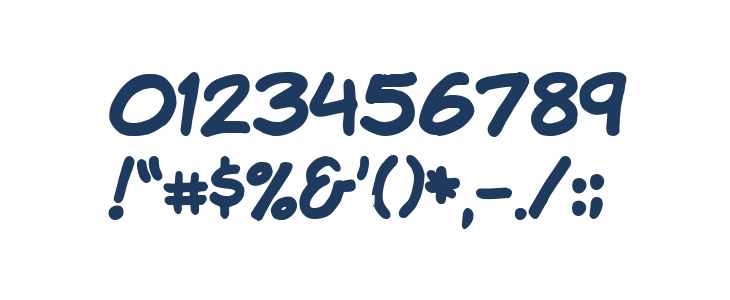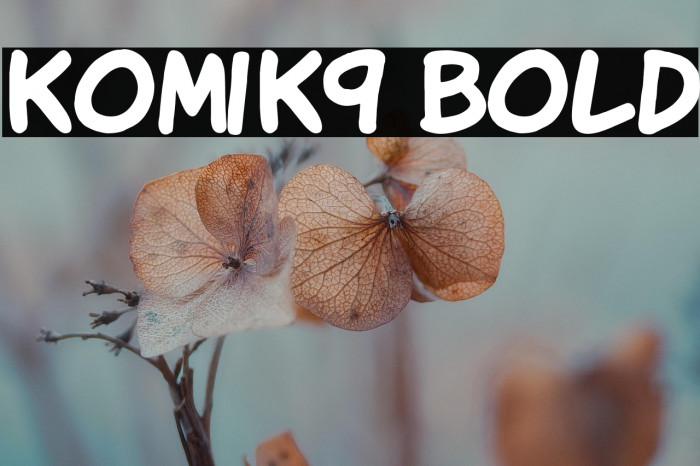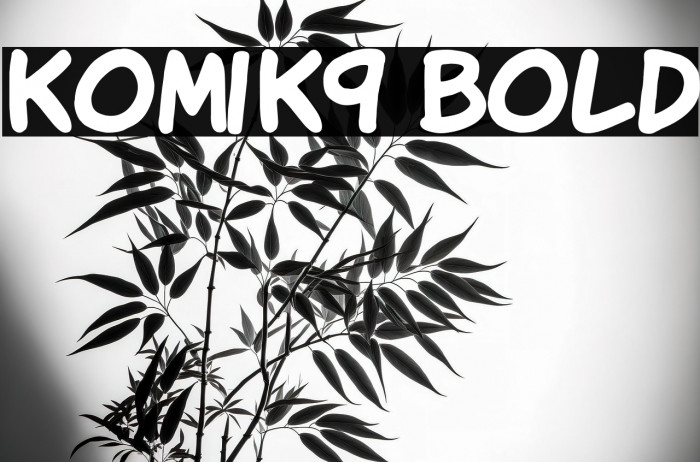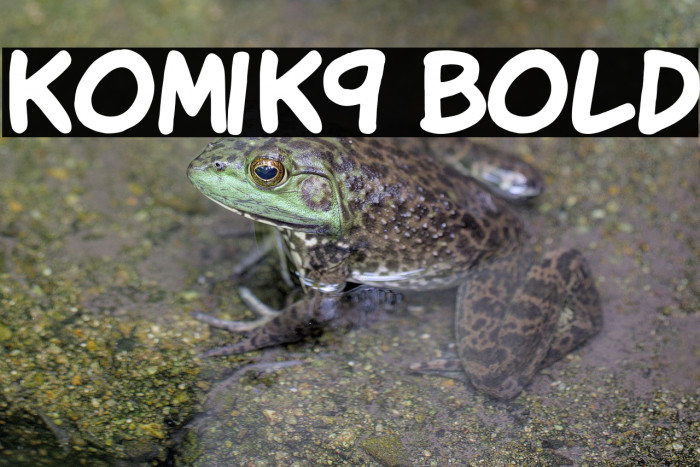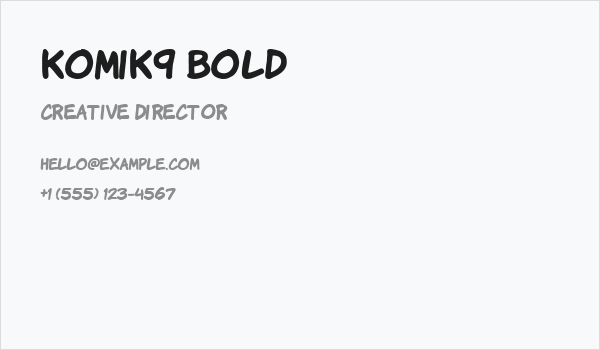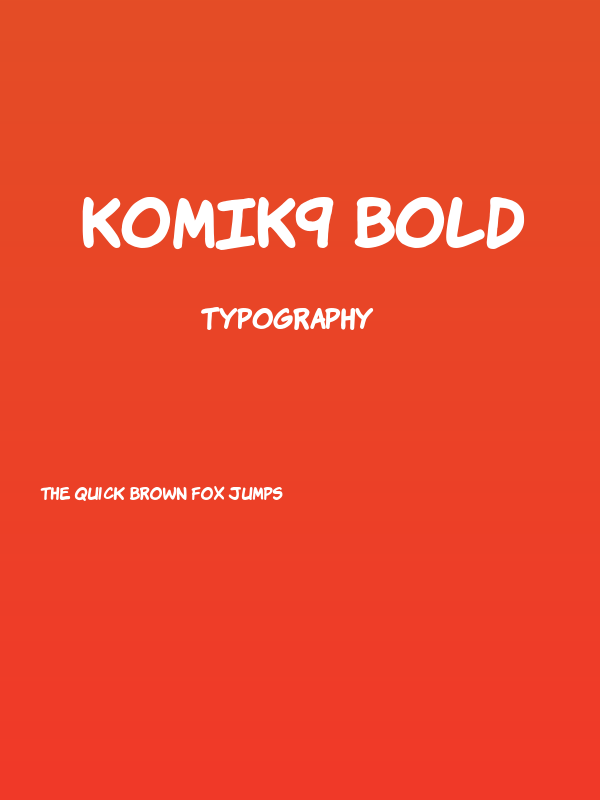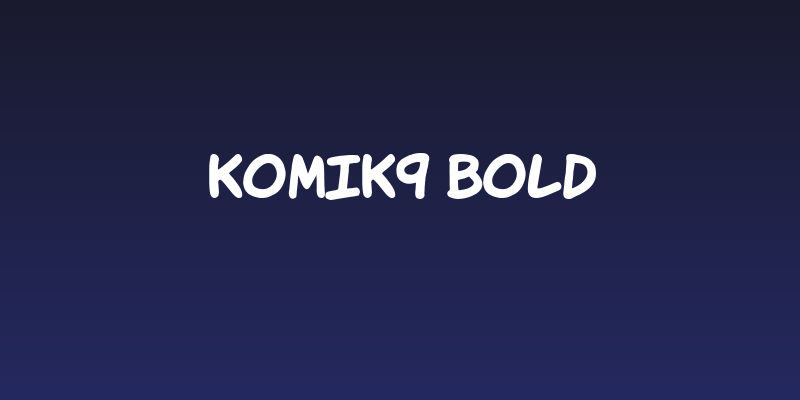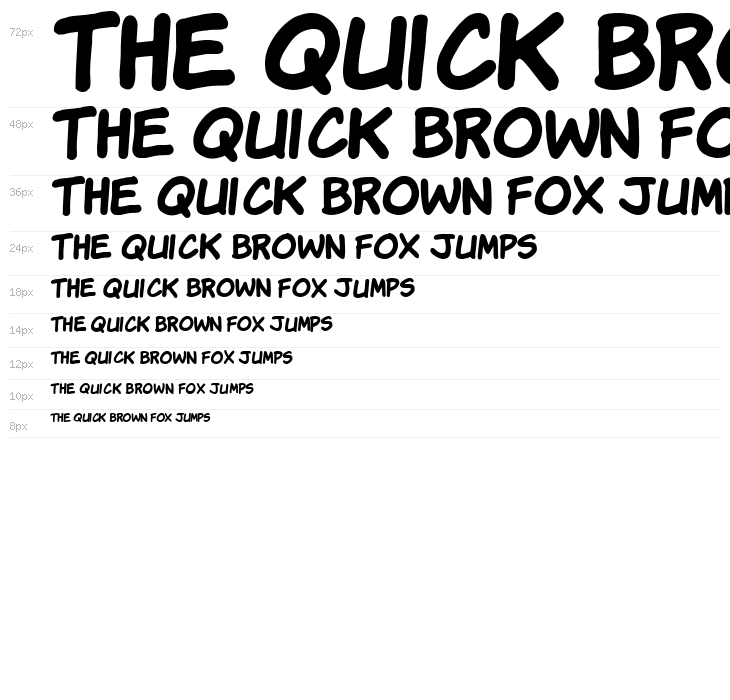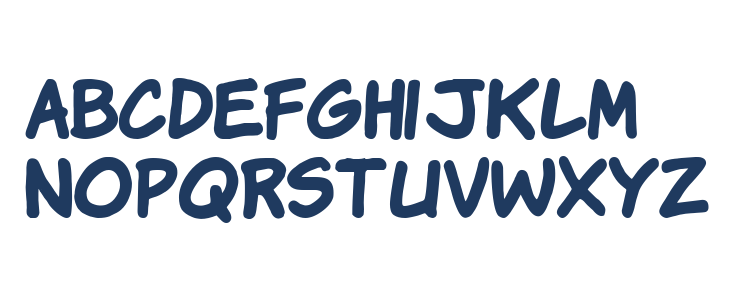
KomiK9 Bold Font
KomiK9 Bold Description
This playful and bold font features a handwritten style with rounded edges and a casual appearance. The characters are slightly slanted, giving a dynamic and energetic feel. The strokes are thick and consistent, providing a strong presence on the page. The font maintains a uniform weight throughout, ensuring readability while adding a touch of fun and creativity. Its informal style makes it suitable for projects that require a friendly and approachable look. The spacing between characters is moderate, allowing for clear distinction between each letter.
| Proposed Projects | Ideal for comic books, children's books, playful branding, posters, and greeting cards. |